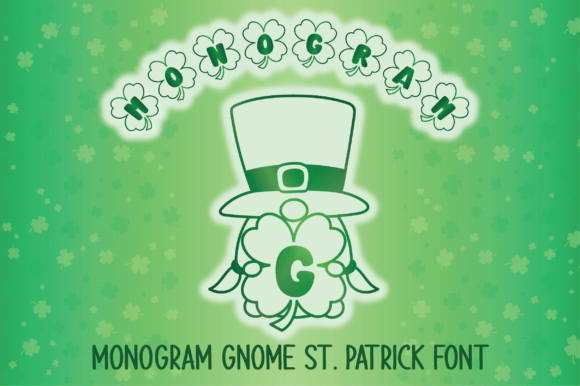
Introducing Monogram Gnome Font, a decorative font designed by SVG Bloom. Get ready to dive into a world of fun and festivity with this captivating typeface that will truly elevate your designs. Whether you're working on a personal project, a professional website, or a special occasion invitation, Monogram Gnome Font is the perfect choice to add that extra touch of charm and creativity.
With its unique and whimsical style, Monogram Gnome Font brings a sense of playfulness to any design. Let your imagination run wild as you explore the endless possibilities this font offers. From birthday cards to wedding invitations, party banners to scrapbooking projects, this font is a versatile companion that guarantees to make your creations stand out from the crowd.
Unleash your creative genius with Monogram Gnome Font's wide range of characters and glyphs. Each letter is meticulously crafted to exude personality and flair, ensuring that your designs will leave a lasting impression. The intricate details and stylish curves of this font make it a true work of art, making your text come alive with every stroke.
But Monogram Gnome Font is not just about aesthetics; it's also about functionality. With its extensive language support, you can seamlessly incorporate this font into projects for various audiences around the world. From English to French, Spanish to German, Monogram Gnome Font has you covered, ensuring that your message reaches everyone effectively.
Adding Monogram Gnome Font to your font library is like unlocking a treasure chest of endless possibilities. It's not just a font; it's an experience. Feel the excitement as you browse through the wide selection of glyphs and characters, each offering a unique twist to your designs. Let the magic of Monogram Gnome Font transform your projects into memorable masterpieces that captivate and enchant.